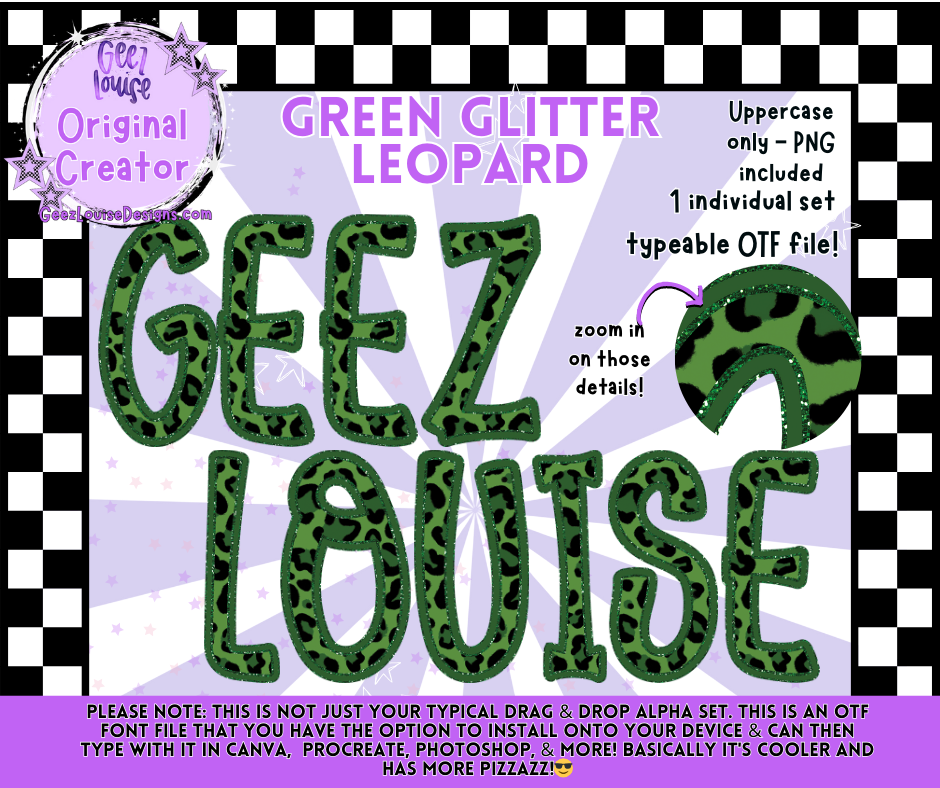
Green Glitter Leopard OTF Alpha | Digital Font + PNG Set
Add some wild sparkle to your designs with the Green Glitter Leopard OTF Alpha! 🐆✨
Perfect for creating bold lettering, standout shirt designs, digital graphics, and custom projects that need that extra pop of glitter and leopard attitude.
Why you’ll love it:
✔ Eye-catching glitter leopard print
Bring fierce style and sparkle to every project with this glitter leopard alpha. 💚🐆